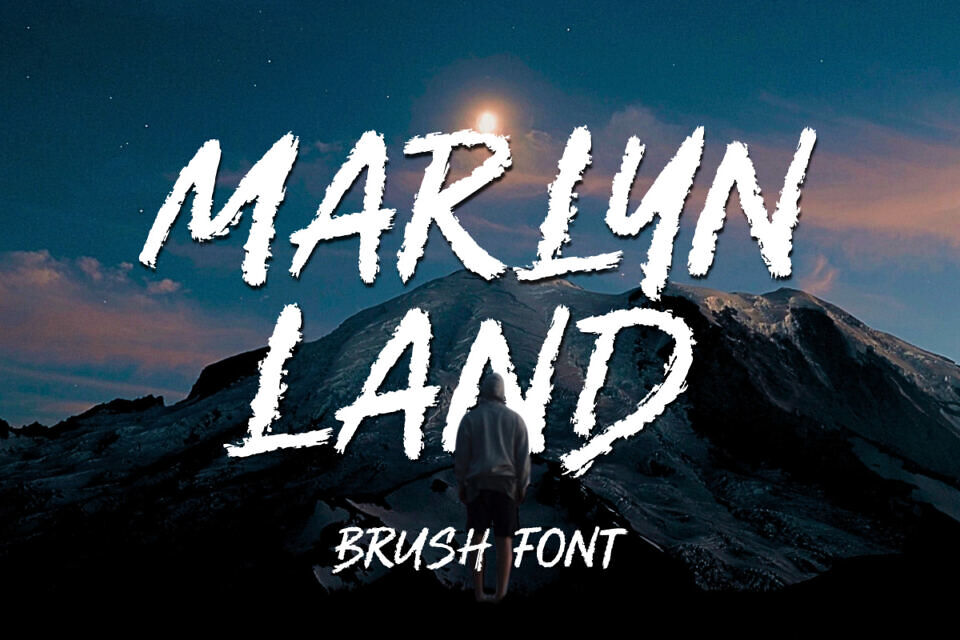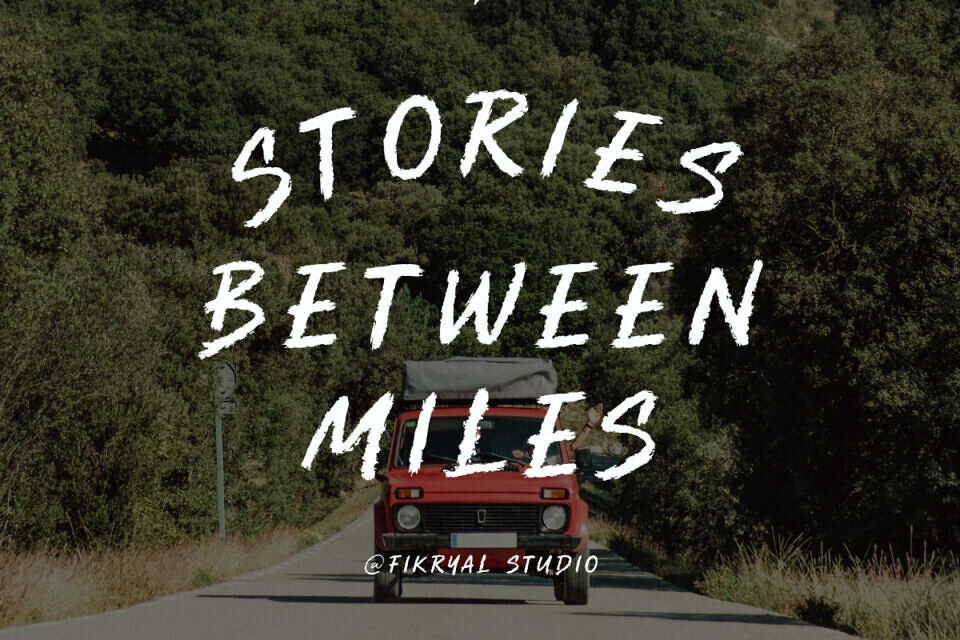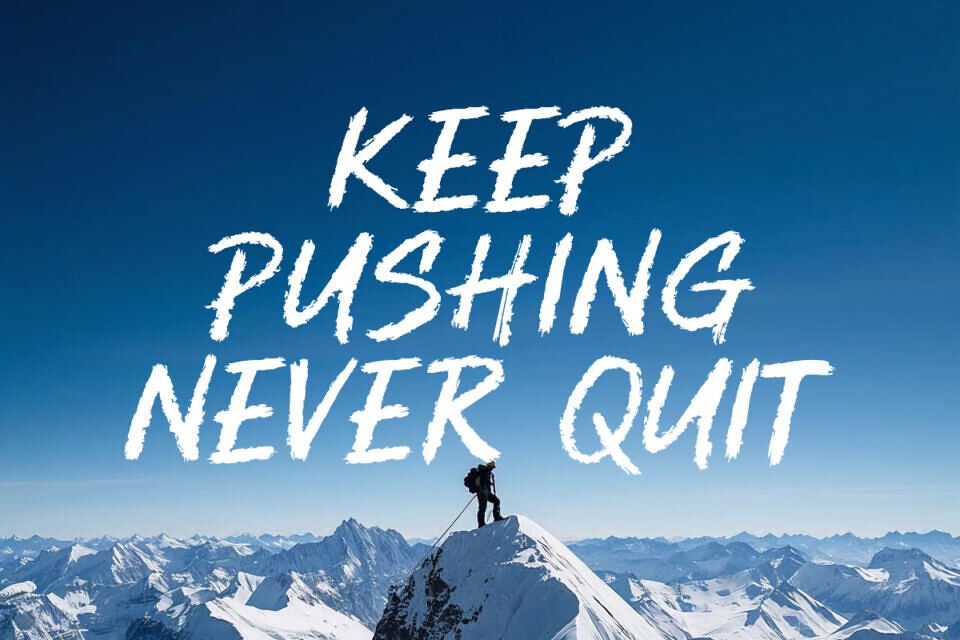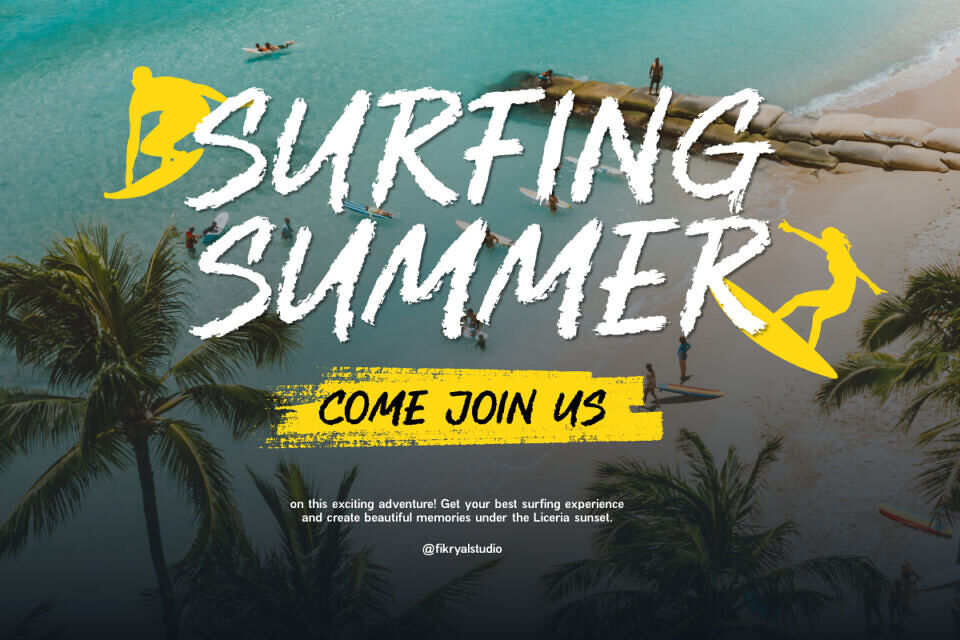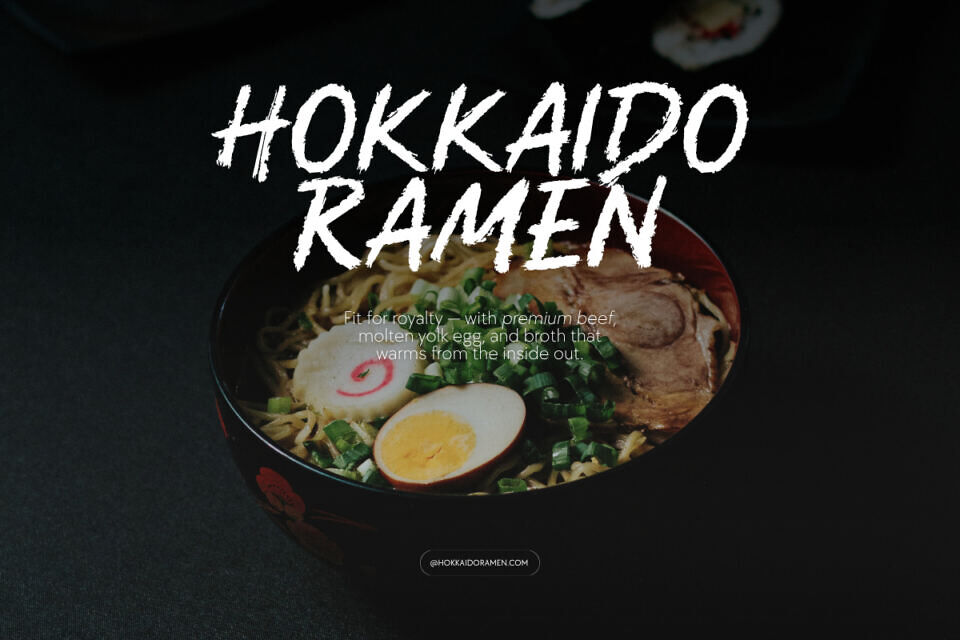
Marlyn Land is a bold all-caps brush typeface designed to bring raw energy, handcrafted texture, and expressive personality to your designs. Inspired by authentic brush lettering, this font captures a natural painted look with strong strokes, rough edges, and dynamic movement, making every word feel powerful and alive.
Perfect for branding, logo design, posters, apparel, packaging, headlines, merchandise, social media graphics, sports designs, and editorial projects, Marlyn Land delivers a striking visual impact while maintaining readability.